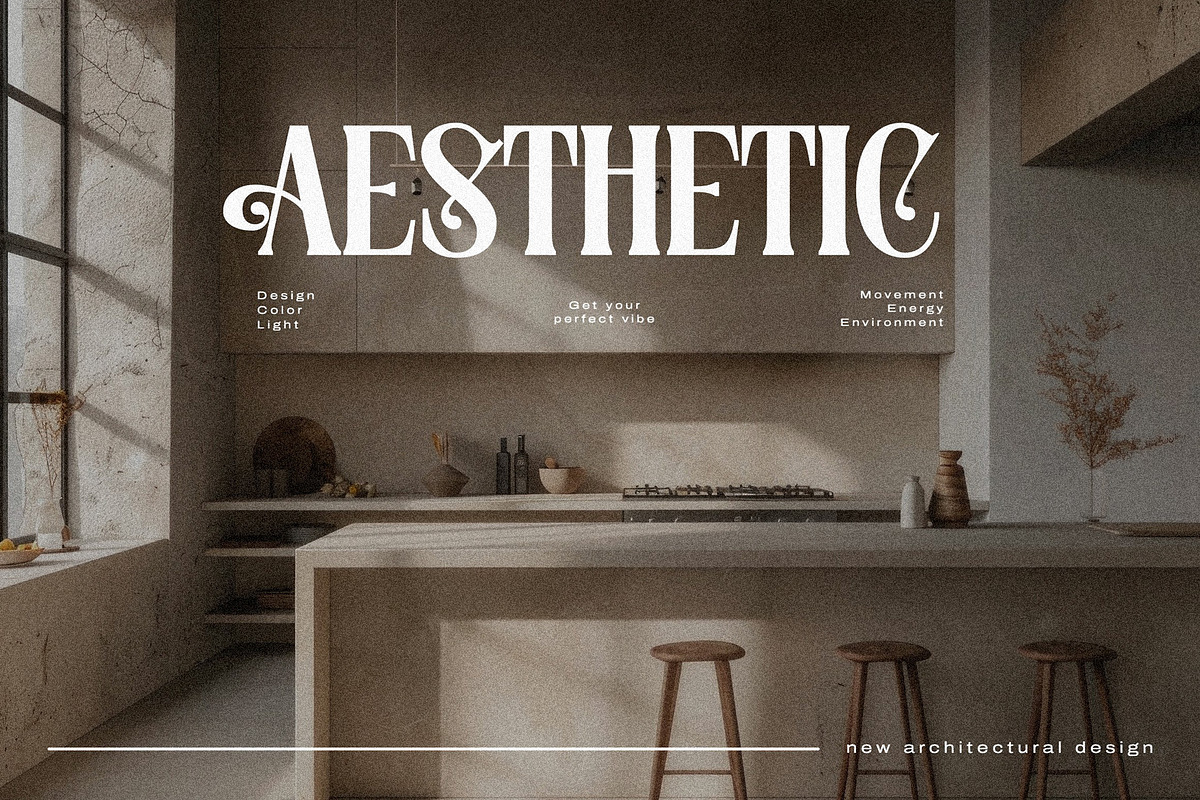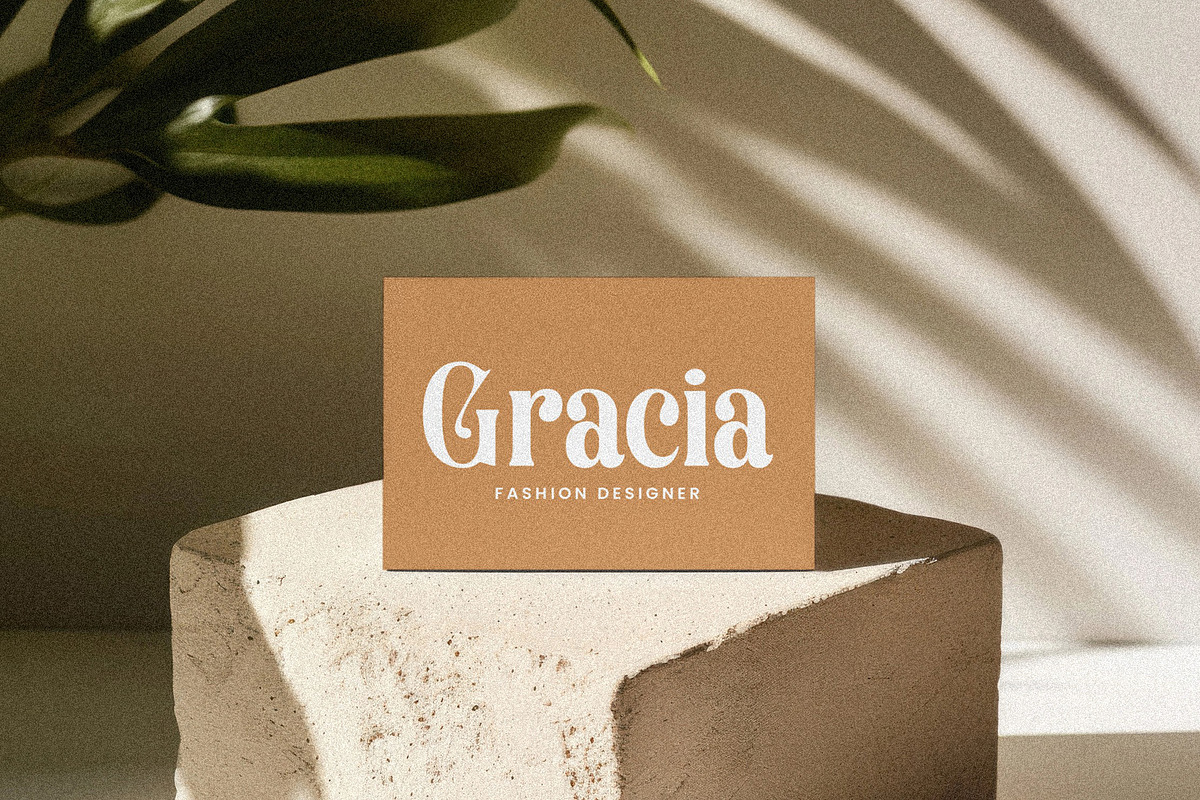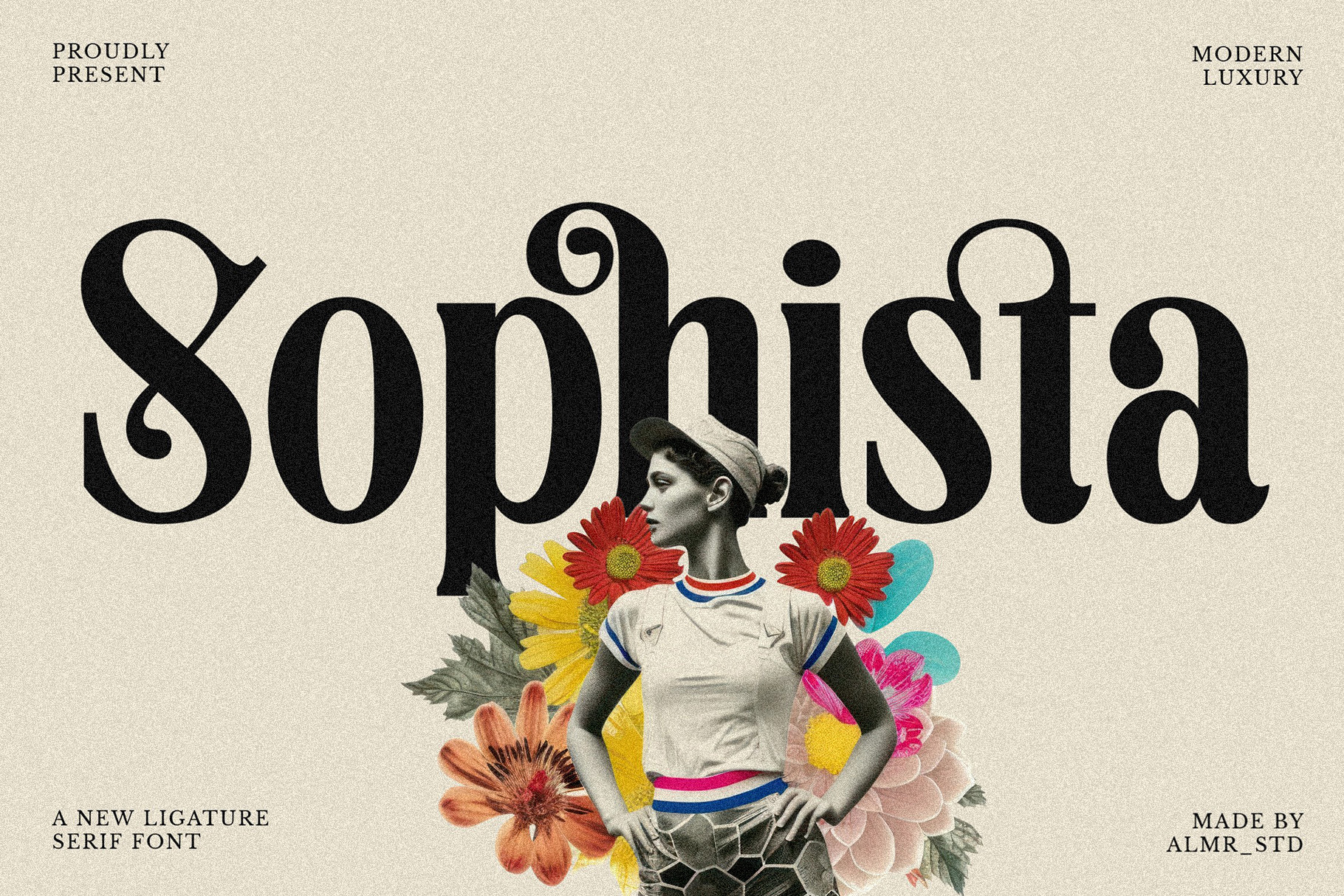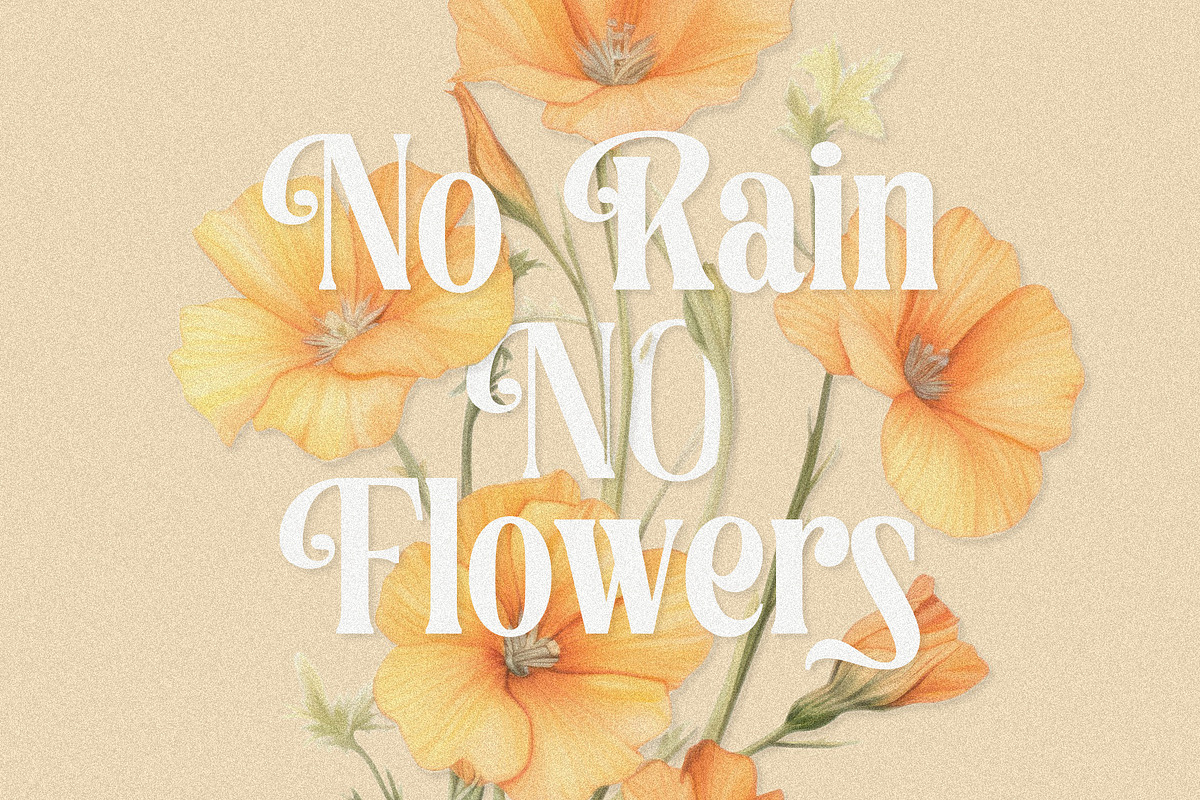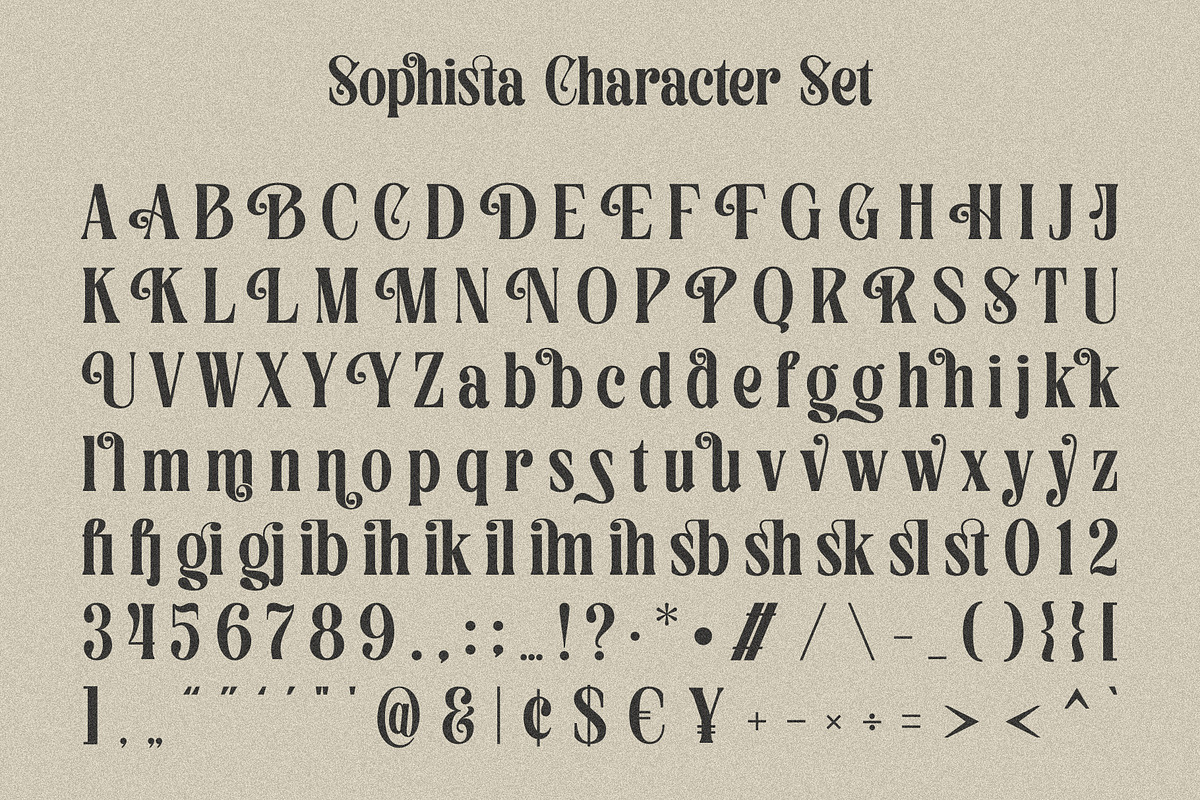
Sophista - Ligature Serif Font
Introducing Sophista - Ligature Serif Font. Sophista is a very elegant and classy font for all branding and logo designs. This type of serif font is created with elegance and luxury so it is perfect for all your design needs. This font is equipped with many beautiful and unique ligature and alternate options. This type of font is very suitable for your various needs such as branding projects, logos, social media posts, advertisements, labels, product packaging, photography, wedding designs, watermarks, invitation product designs, stationery, and any project.
- Ligature & alternates